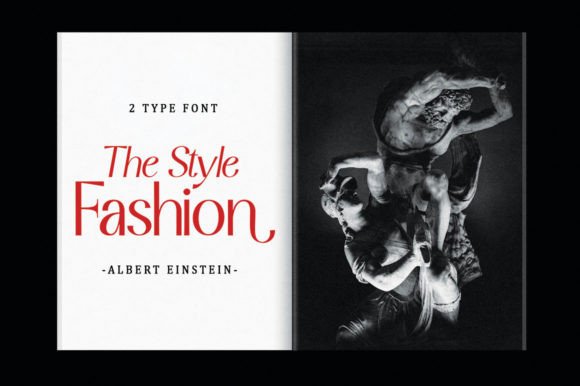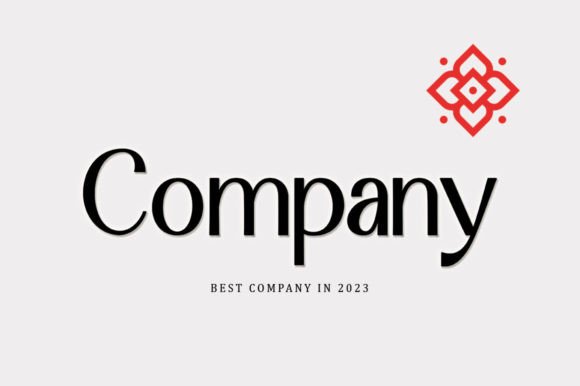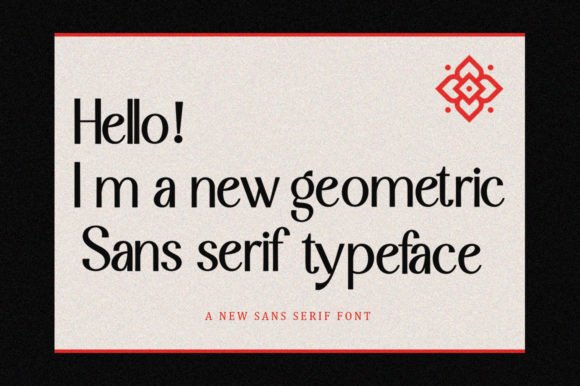
Balgena Font
Balgena is a versatile, high-contrast sans serif font family. It has extra glyphs to give the crafter more options in designing. These extras will make a design look more classy, elegant, unique, and edgy.
Balgena is a font suitable for many projects, modern or even retro vintage designs, branding, logos, crafts, stickers, sublimation, wedding invitations, and more.